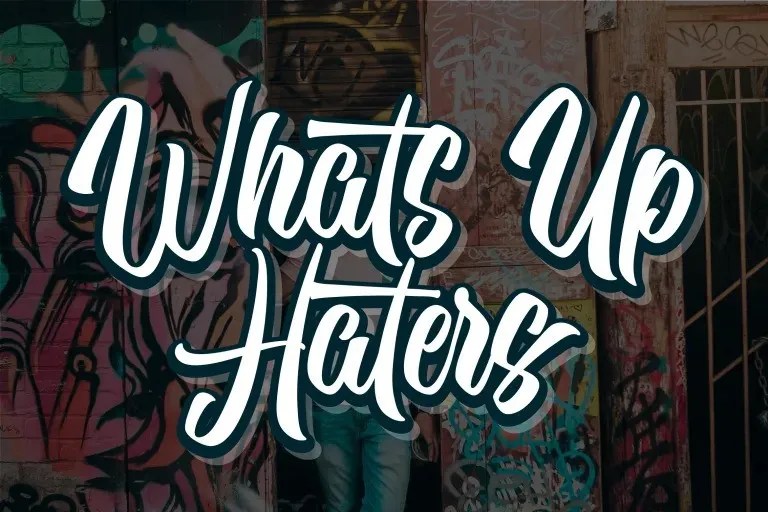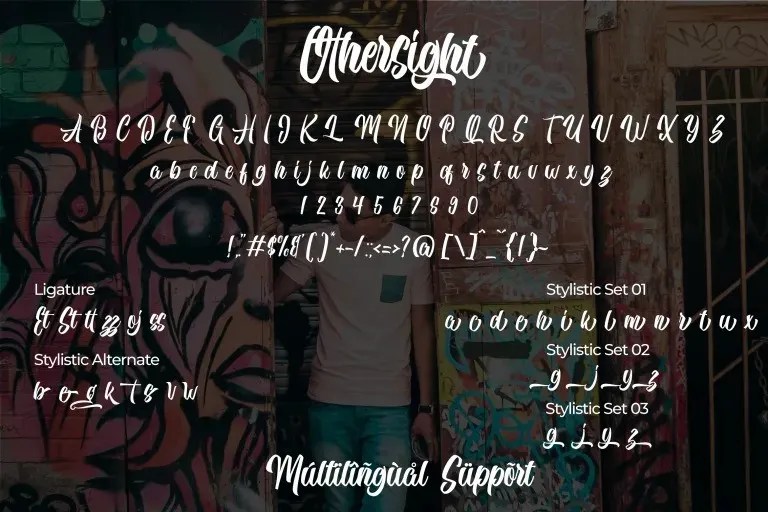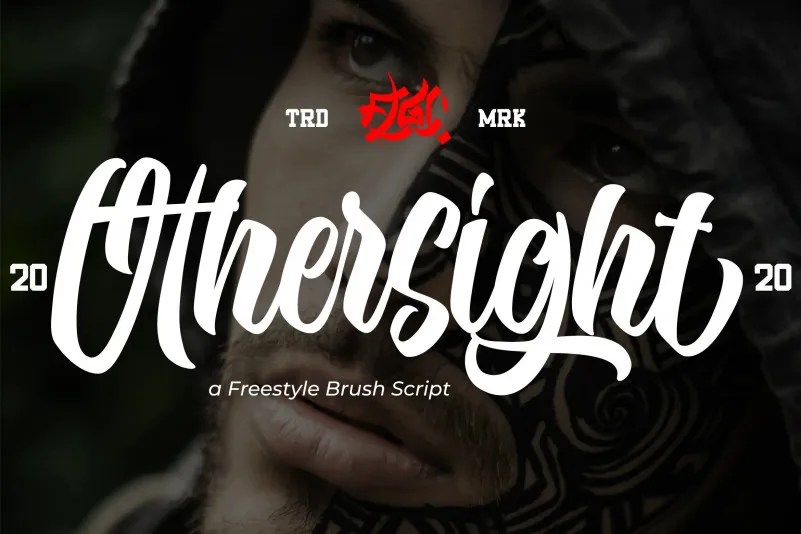
Othersight Script – Free Demo
Hello Everyone! Othersight Font is a freestyle brush script font. It’s a font display that is made by hand, inspired by classic posters. It’s an amazing handwritten font . Made with naturally handwritten. The font will make your design more beautiful and powerful. You can use this font for making an awesome lettering, apparel projects, signature, album cover, logo, branding, magazine, social media, & advertisements, but also works great for other projects.